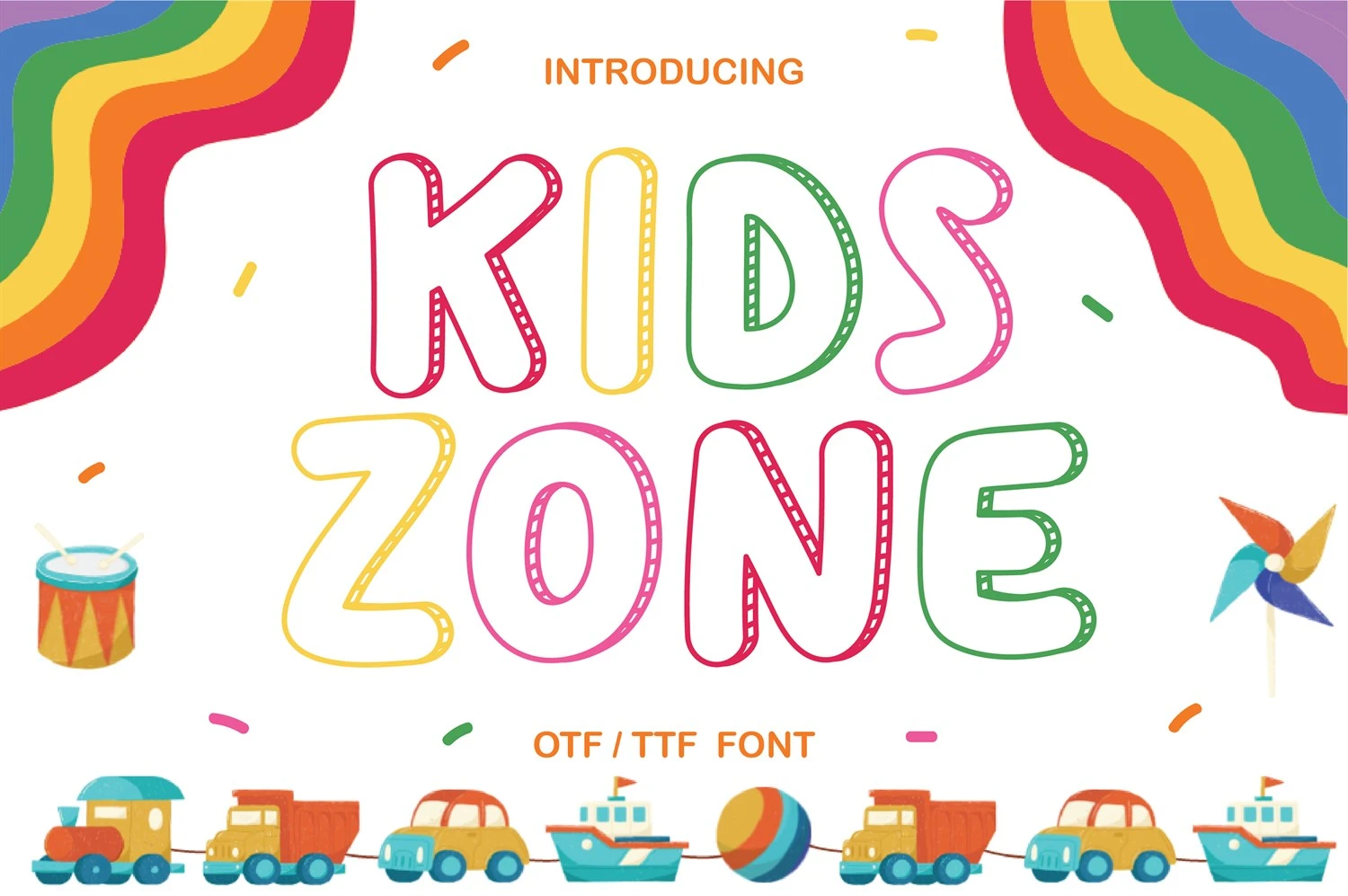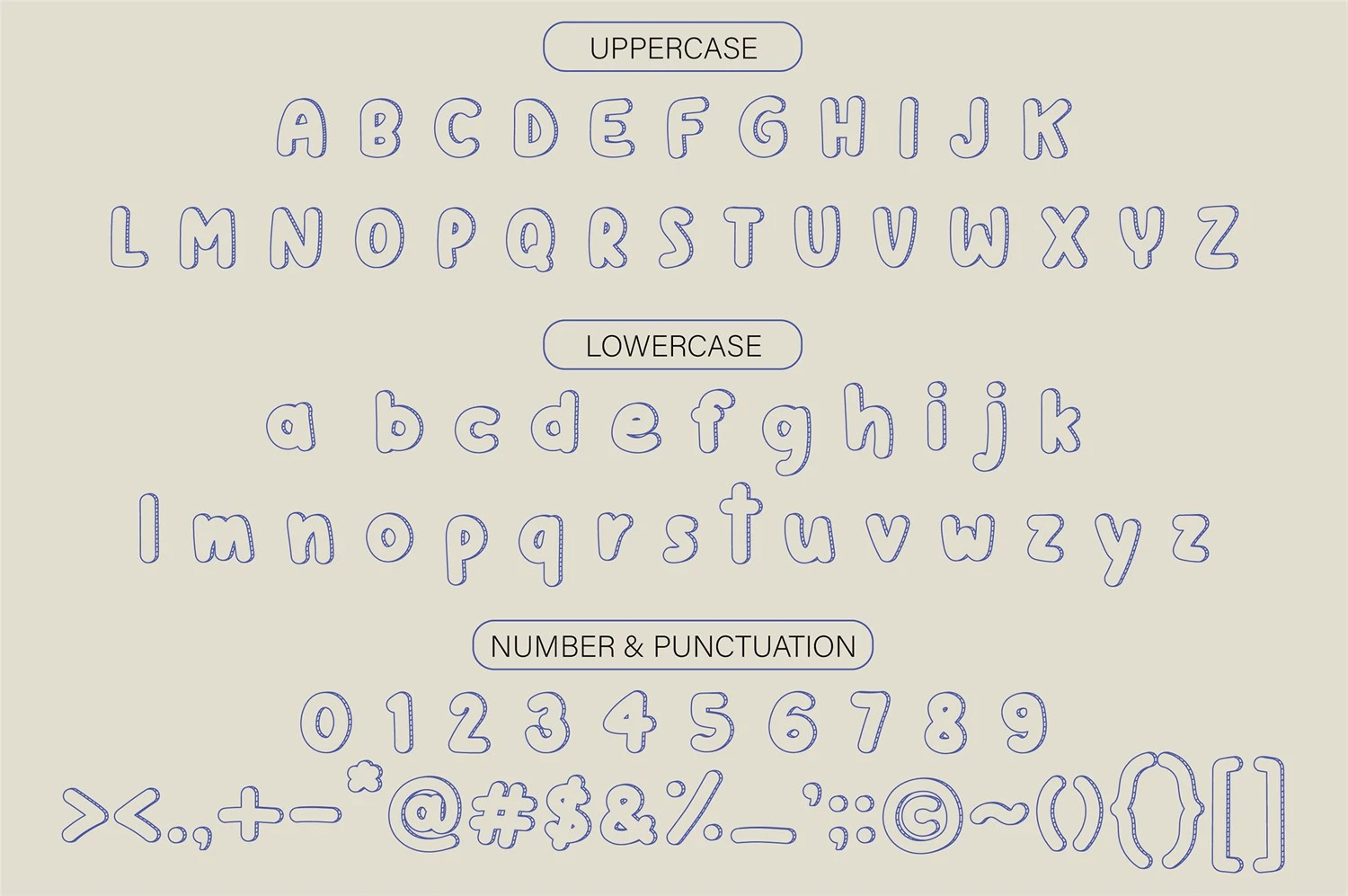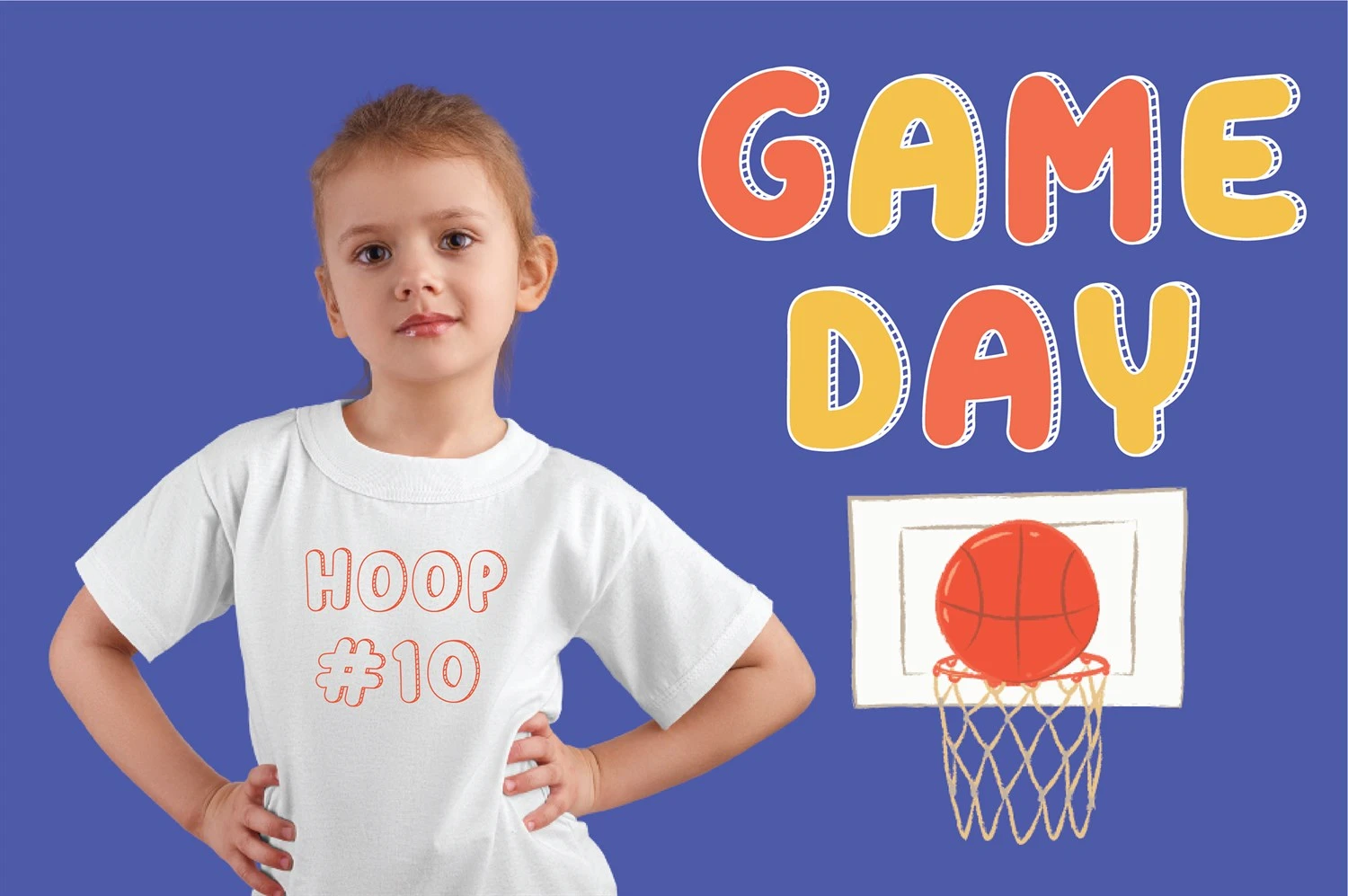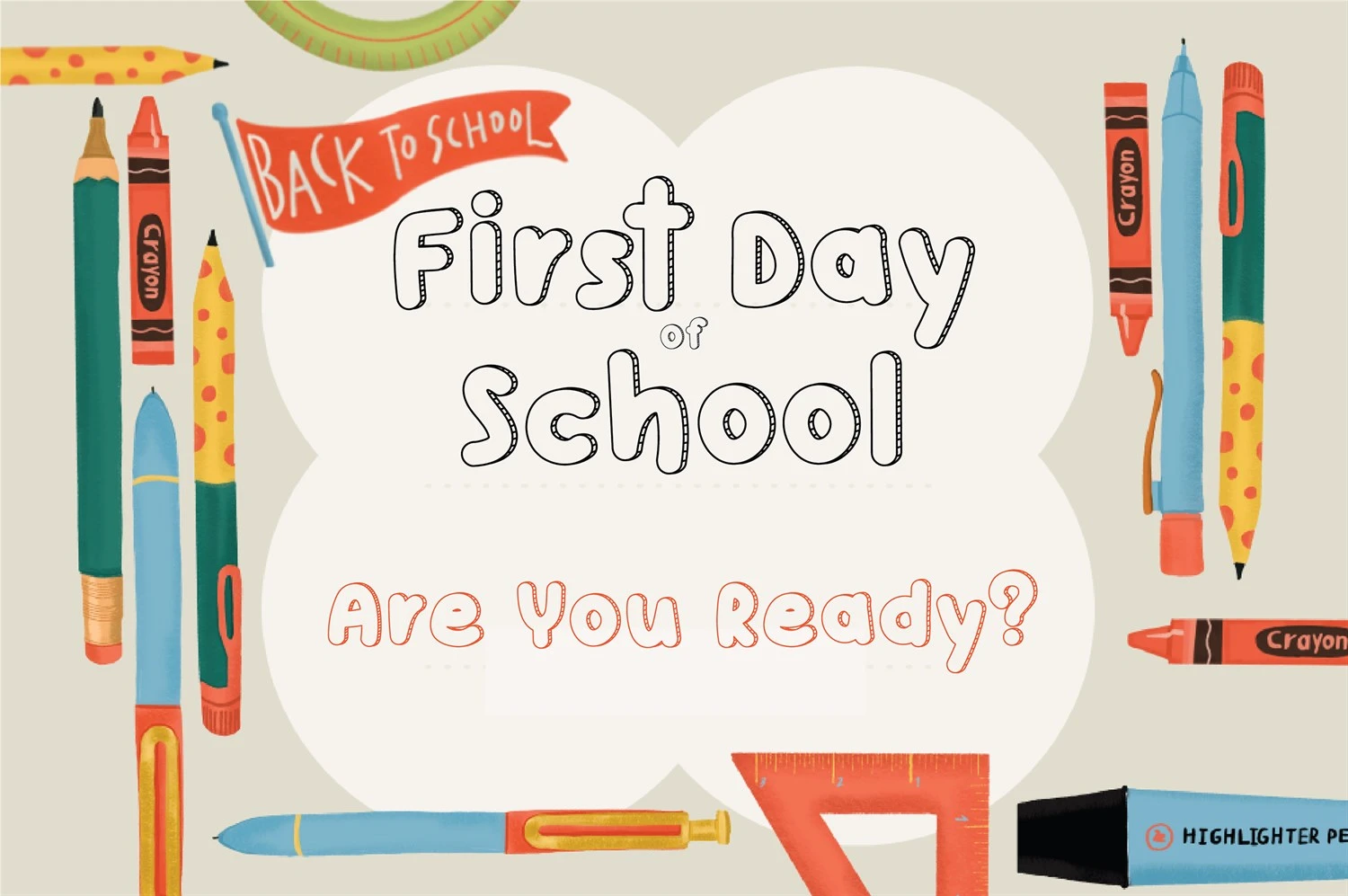
Kids Zone is a fun display font that will turn any creative idea into a true standout! Stay creative with this cute and playful typeface, and use it to brighten any school project!